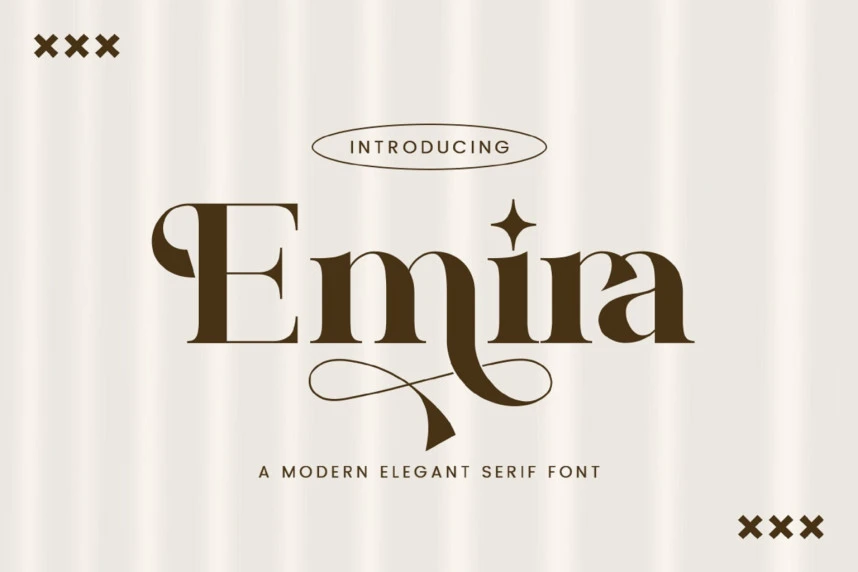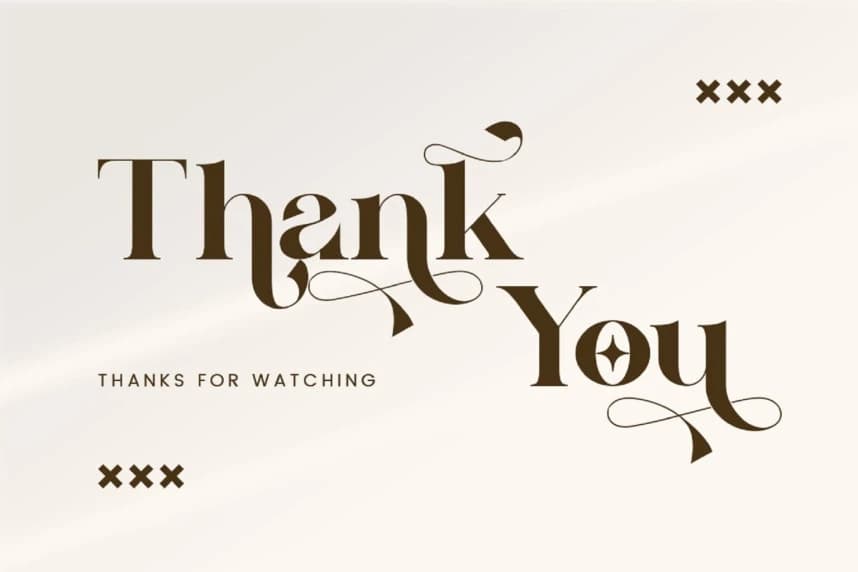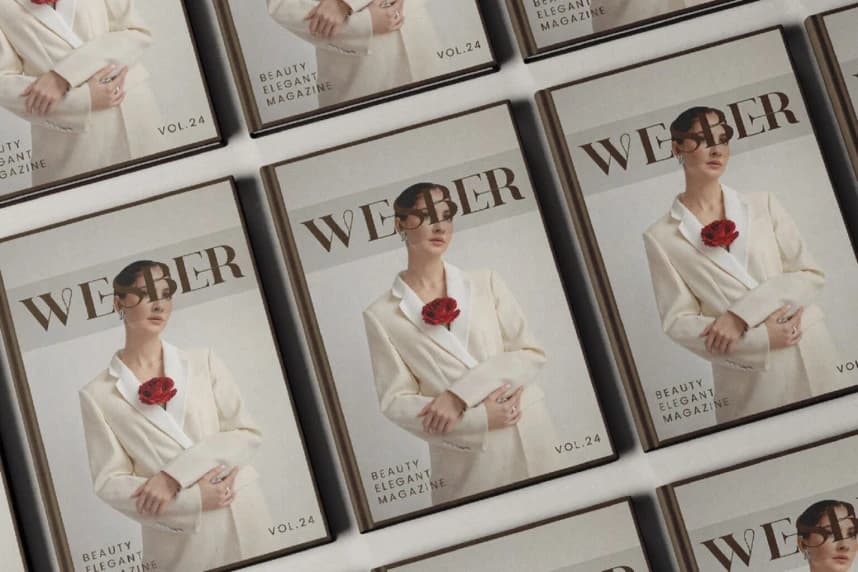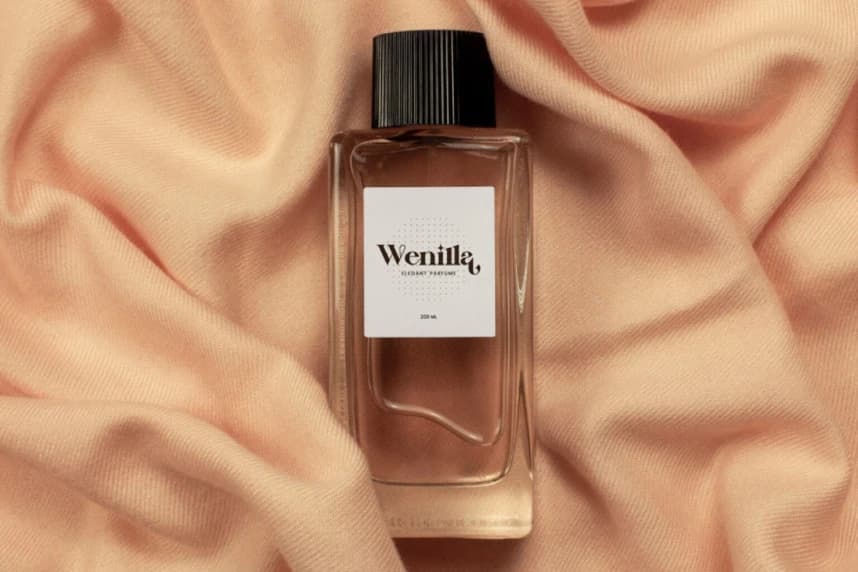
Emira Font
Emira Font - Stylish Ligature Typeface, inspired by the famous minimalist logo perfect for the purposes of designing templates, brochures, videos, advertising branding, logos and more.